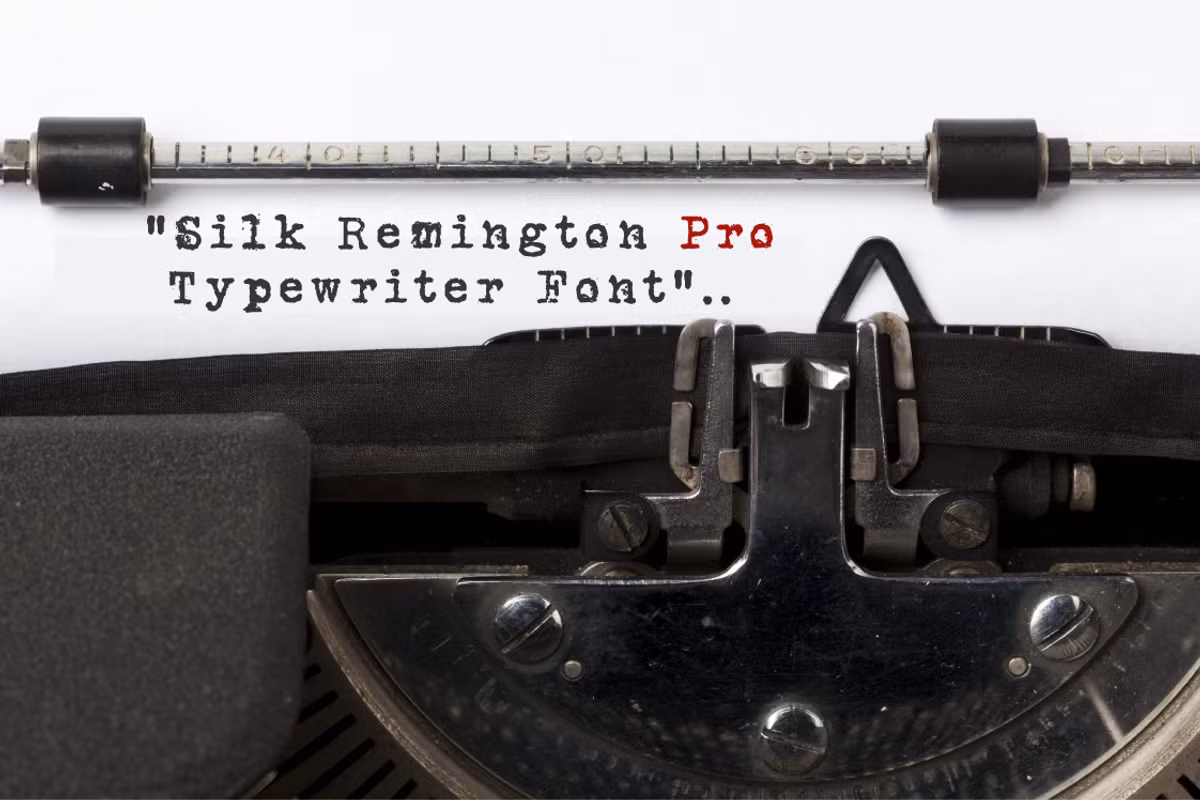
Silk Remington Pro Typewriter Font Free Download is a beautifully crafted typewriter-style font that brings classic nostalgia into modern design. Inspired by vintage Remington machines, this font delivers the authentic charm of old-school typewriting with a clean, professional finish. It’s perfect for journals, book layouts, branding, stationery, editorials, and retro-inspired digital content.
With subtle texture and uneven letterforms, Silk Remington Pro adds character and warmth to your typography. Despite its vintage roots, it’s highly legible and versatile—ideal for both body text and stylish headlines.